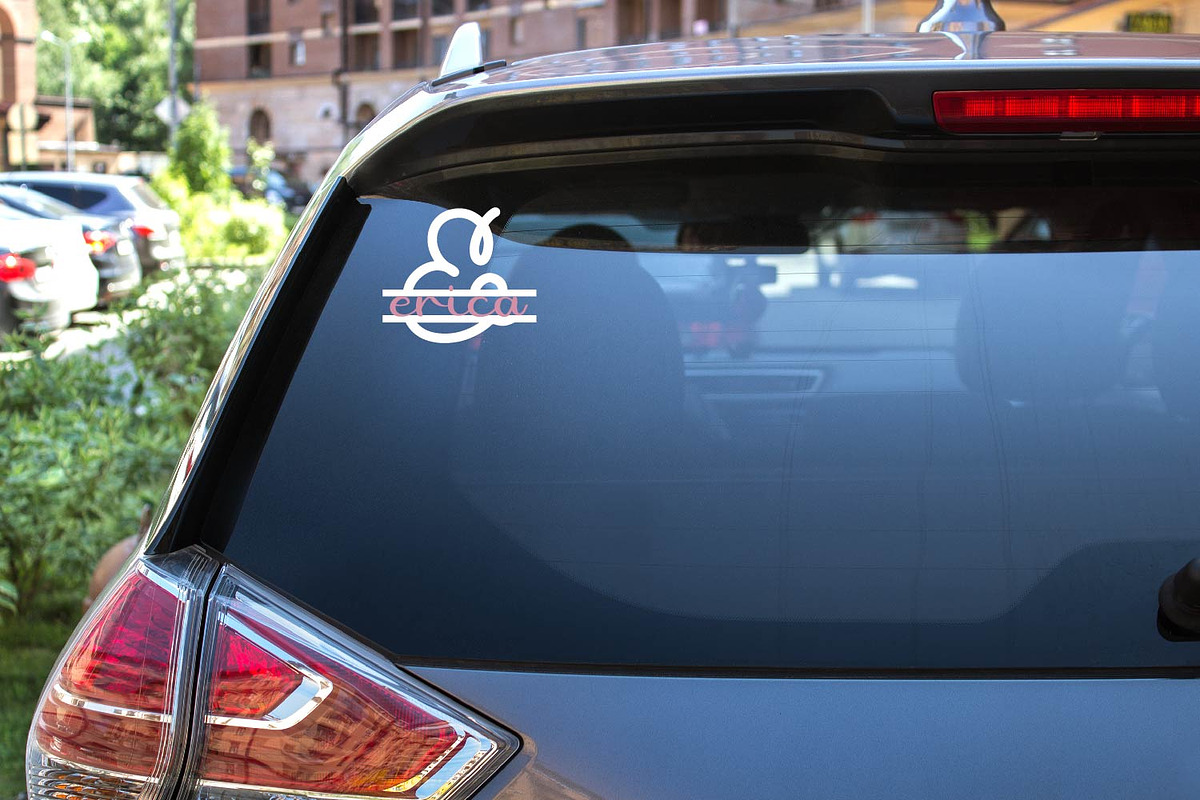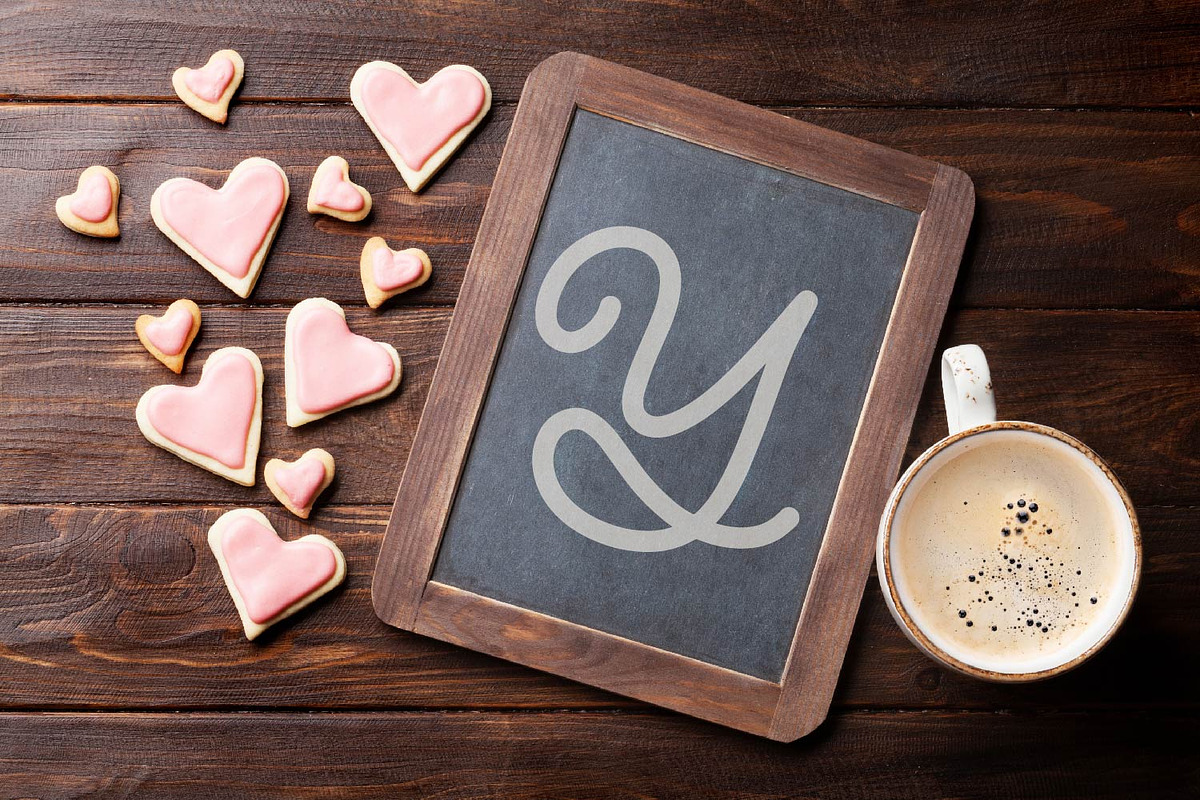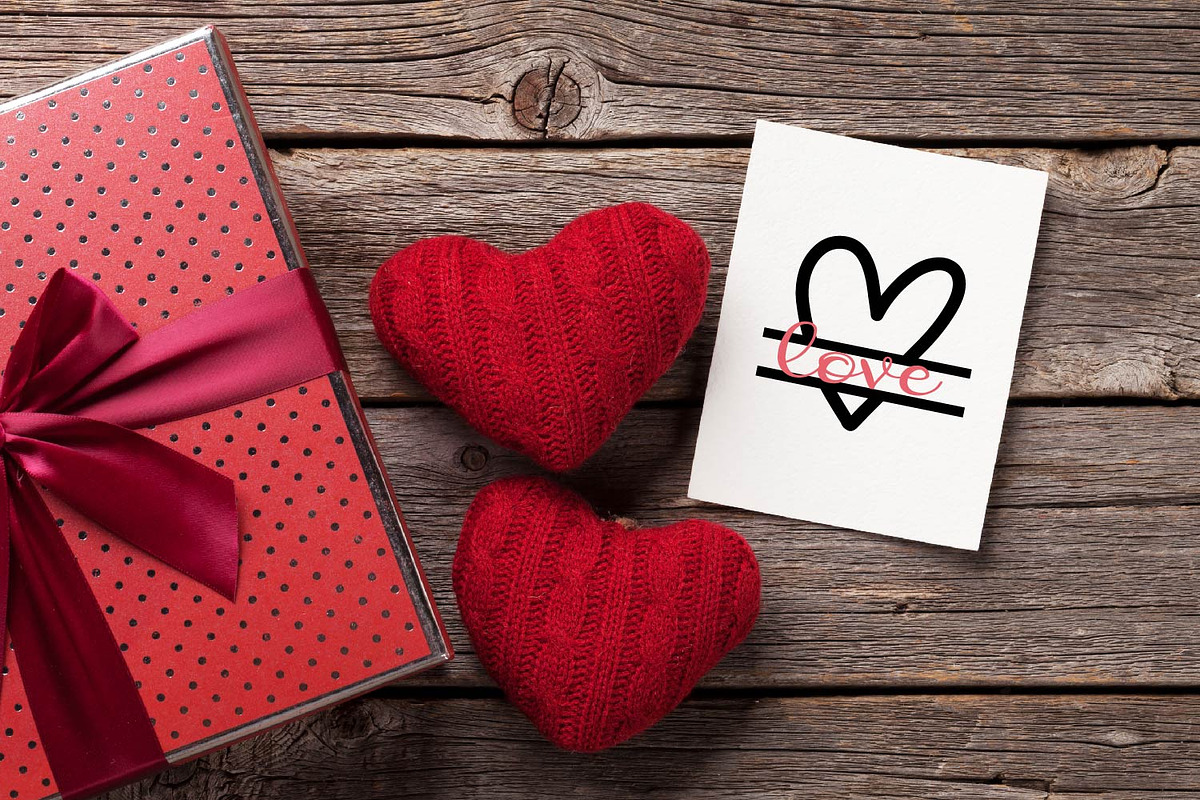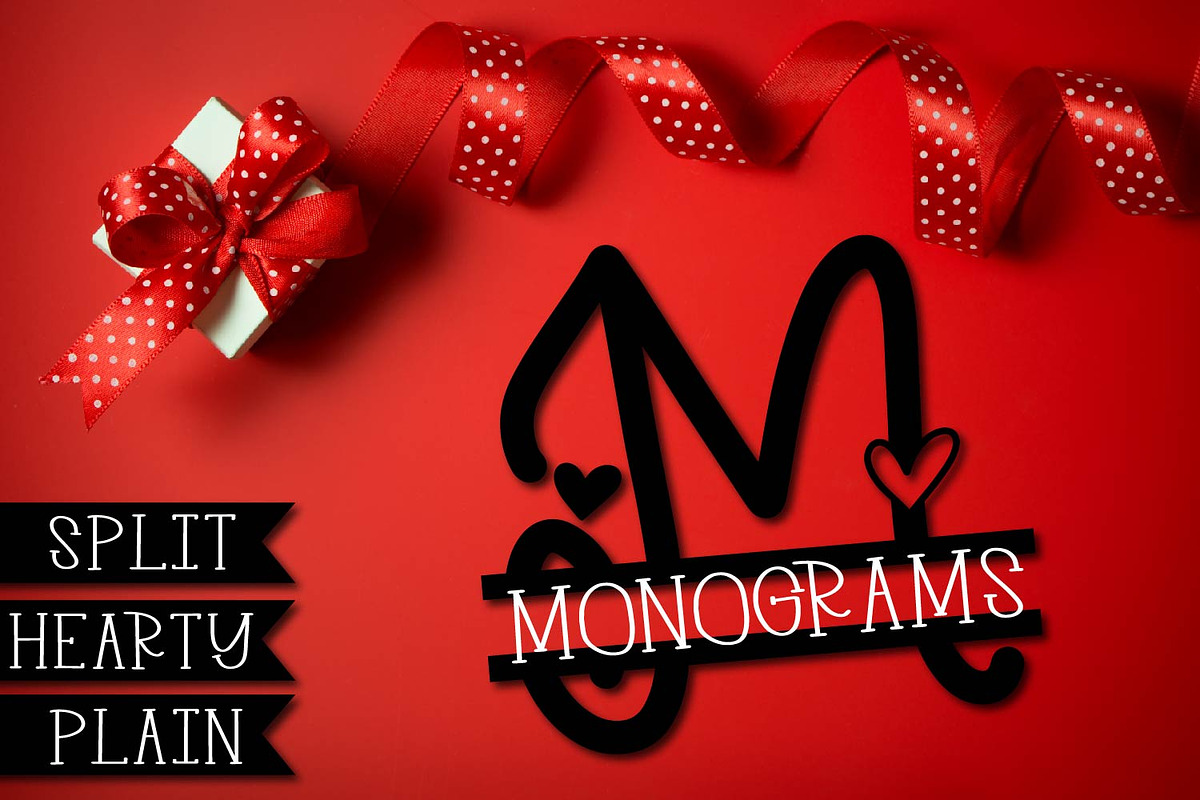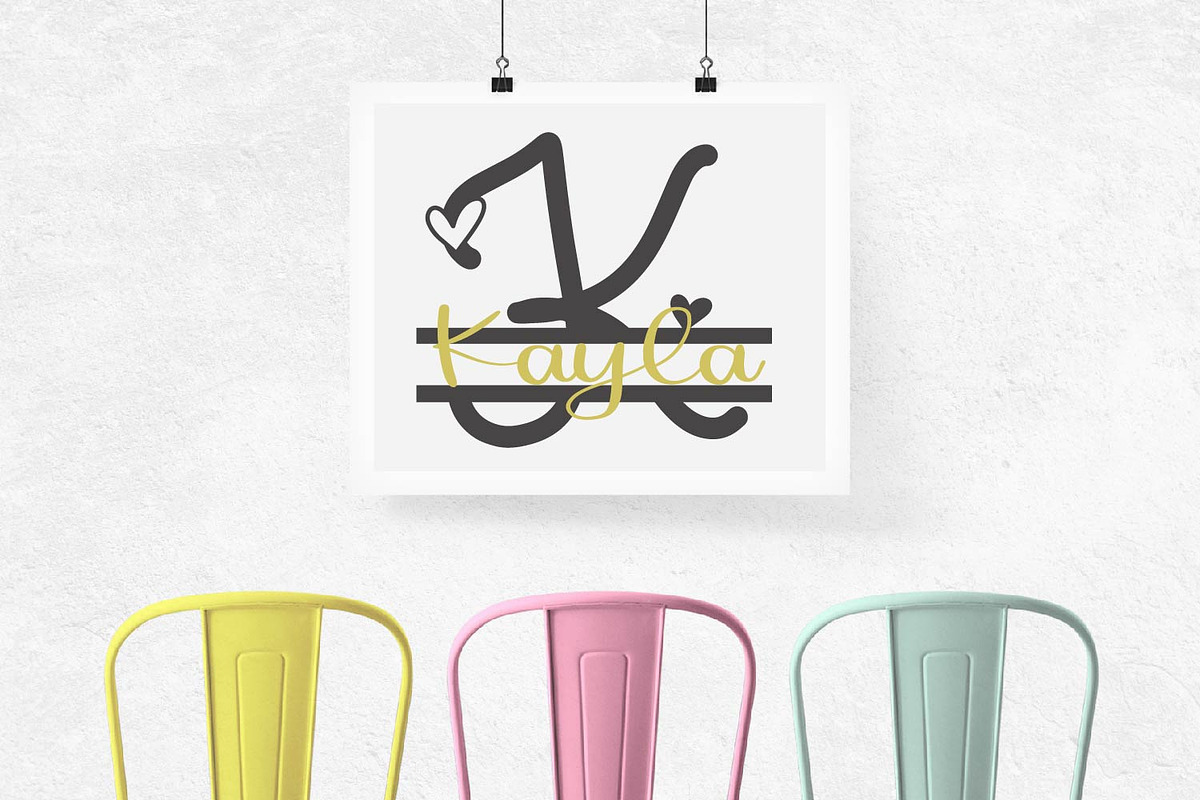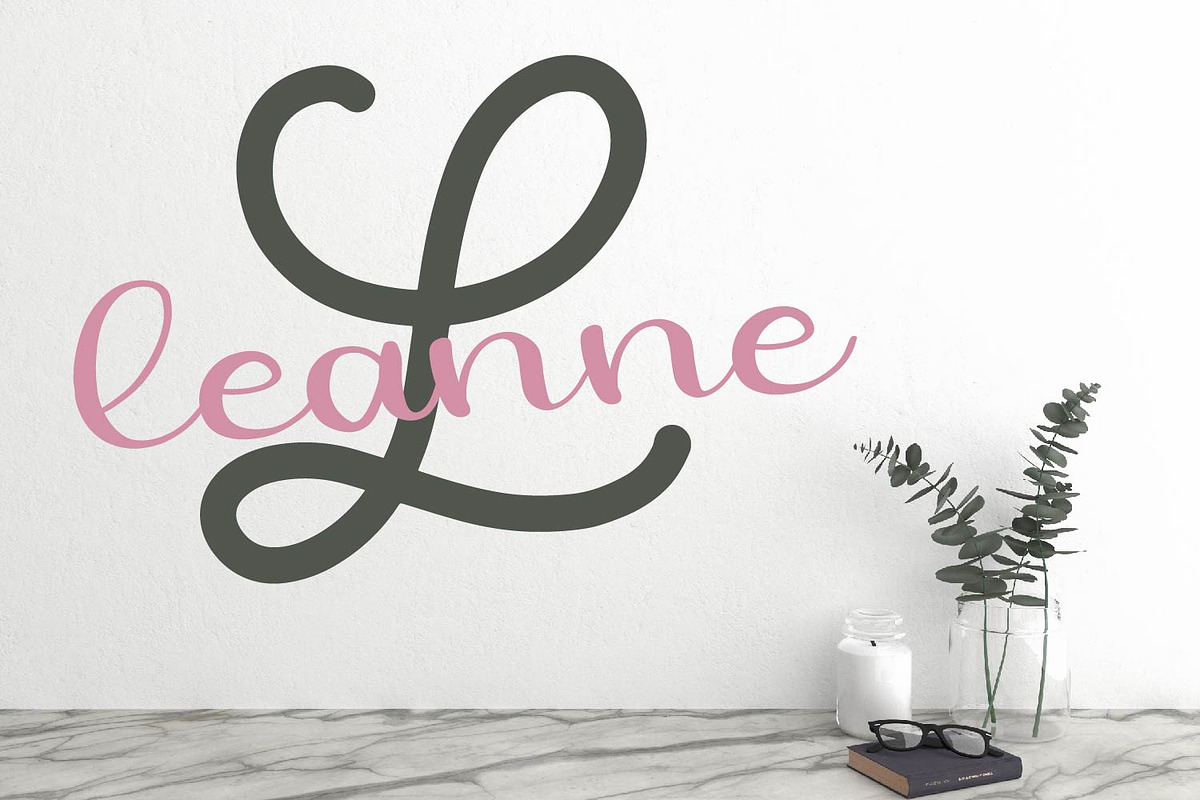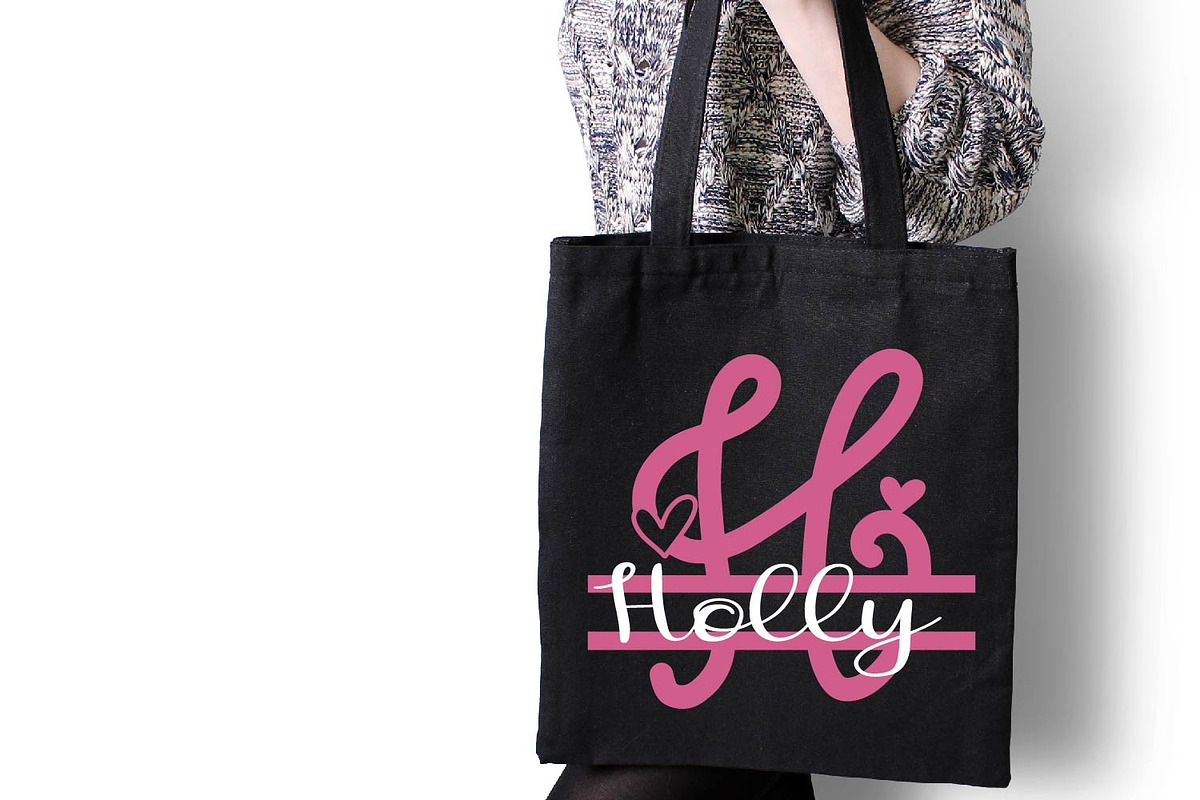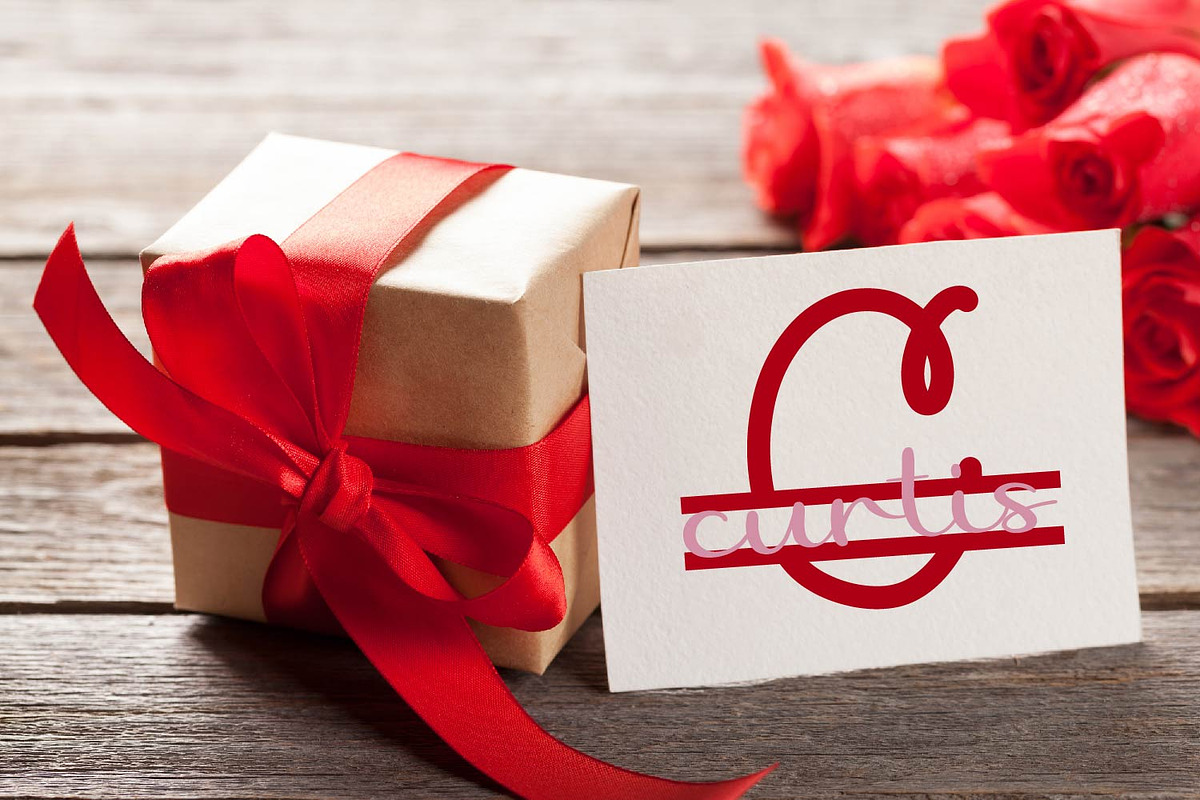
Split Monogram Font Trio
Why Split Monogram Font Trio is worth a look
Split Monogram Font Trio by CraftyLittleNodes fits naturally into Branding, posters, packaging, typography.